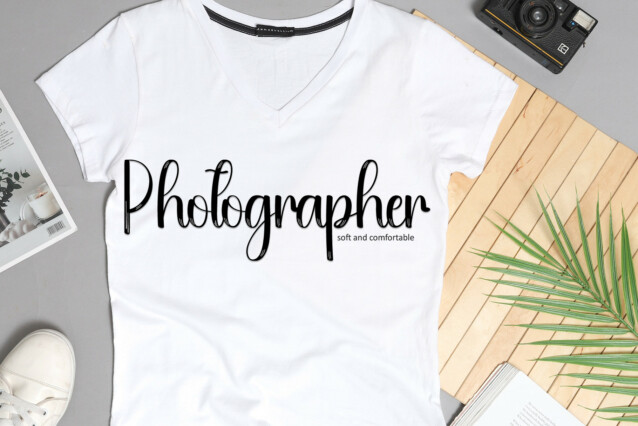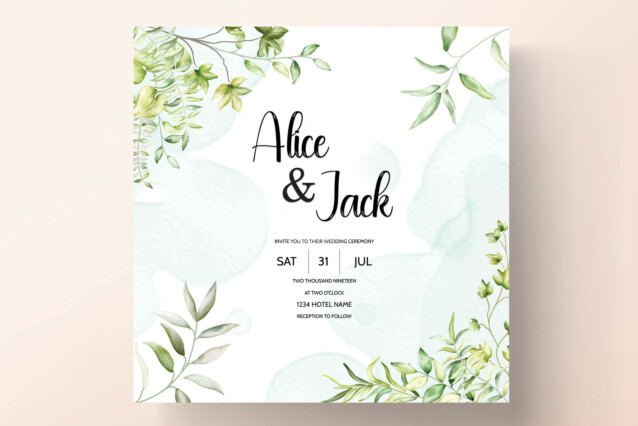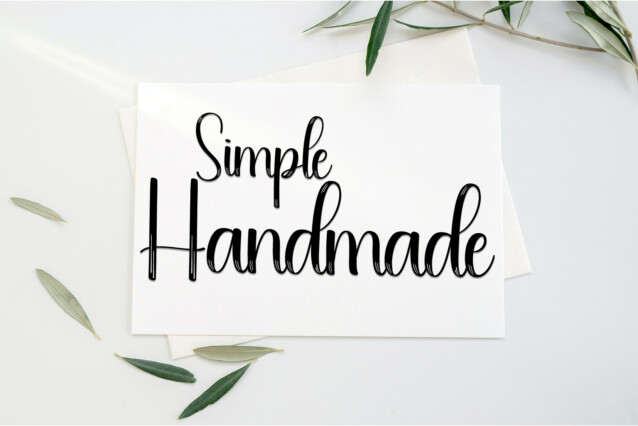
Speacles Brush Font
Speacles Brush Font is a sweet and friendly handwritten display font. Cute and fun, this font is ideal for writing wedding invitations, cards, or any other design that might need a playful touch!